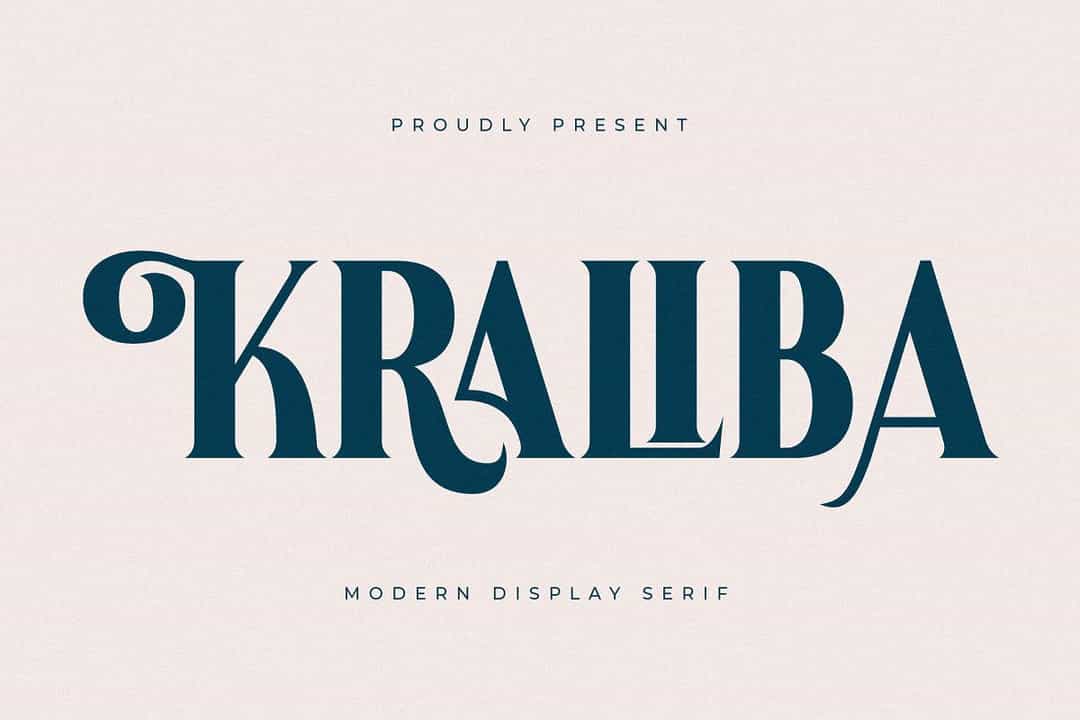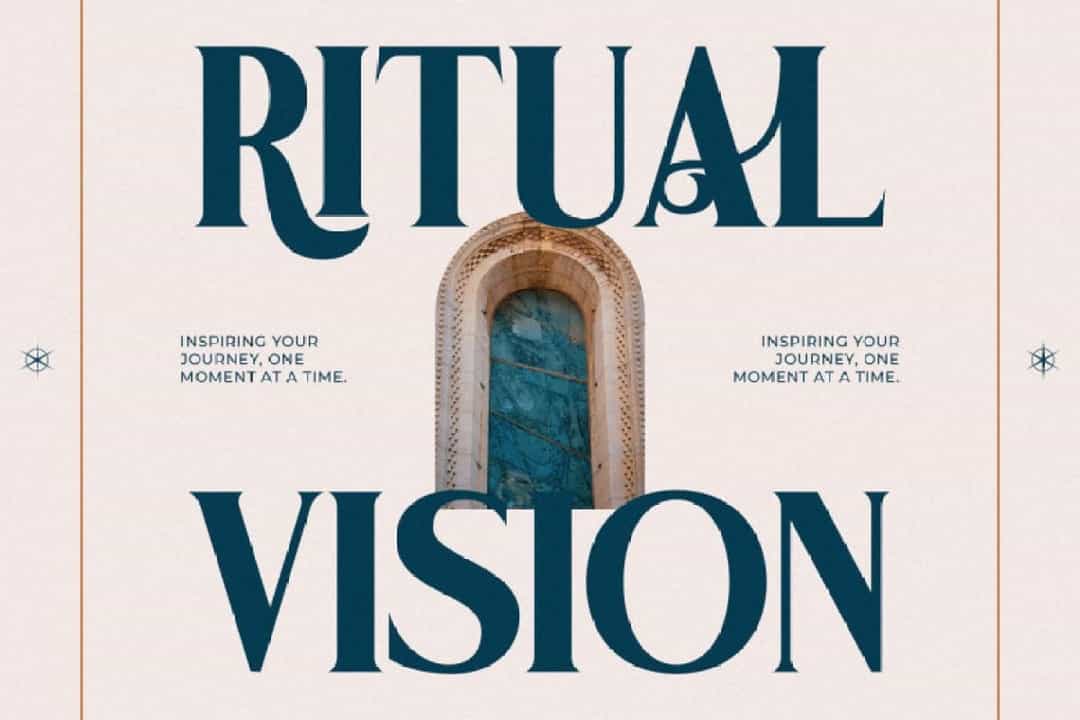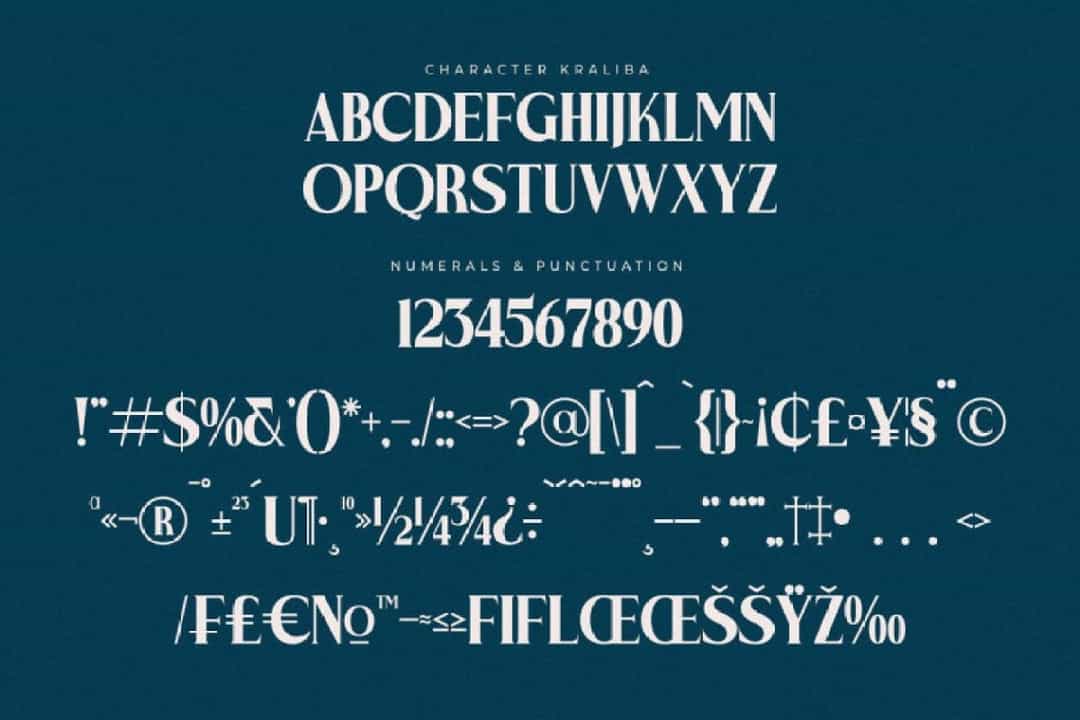
Kraliba is an eye-catching display serif font suitable for use in logos, branding ideas and designs, homeware products packaging designs, homeware packaging designs mugs posters quotes shopping bags t-shirts book covers.